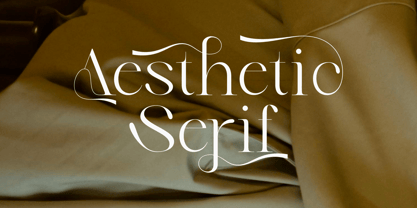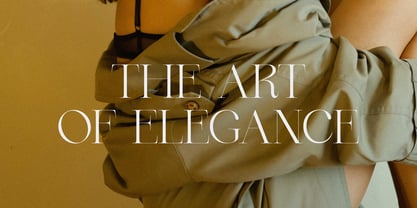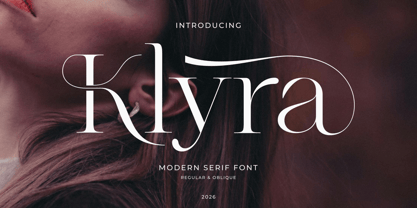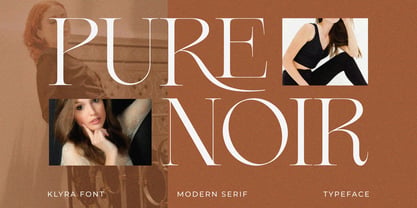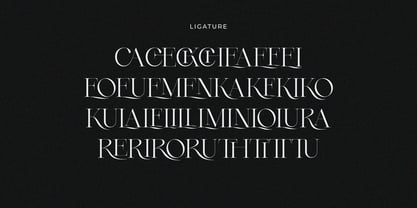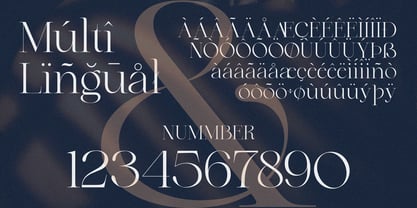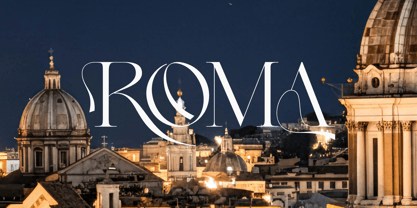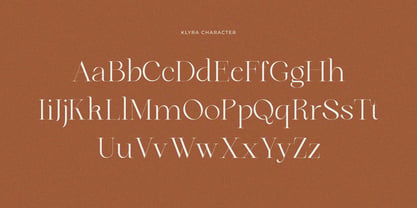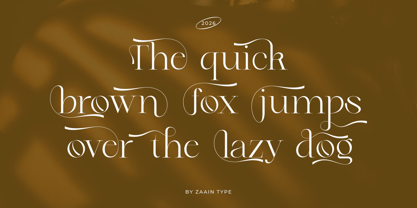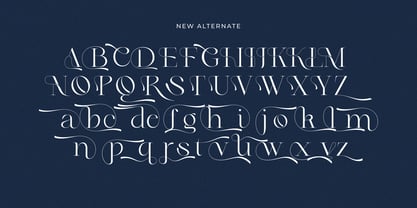
Klyra
by Zaain Type
The Klyra Font Family was designed by Ju Naen and published by Zaain Type. Klyra contains 2 styles and family package options. More about this family
Klyra is a refined serif font that blends timeless elegance with a modern luxury touch. Designed with graceful curves and high-contrast details, Klyra delivers a sophisticated appearance perfect for branding, editorial layouts, fashion magazines, cosmetics, packaging, wedding designs, and premium logos.
Its stylish character creates a beautiful balance between classic beauty and contemporary aesthetics, making every word feel graceful, confident, and memorable. Whether used for bold headlines or delicate typography compositions, Klyra brings an exclusive and artistic impression to your creative projects